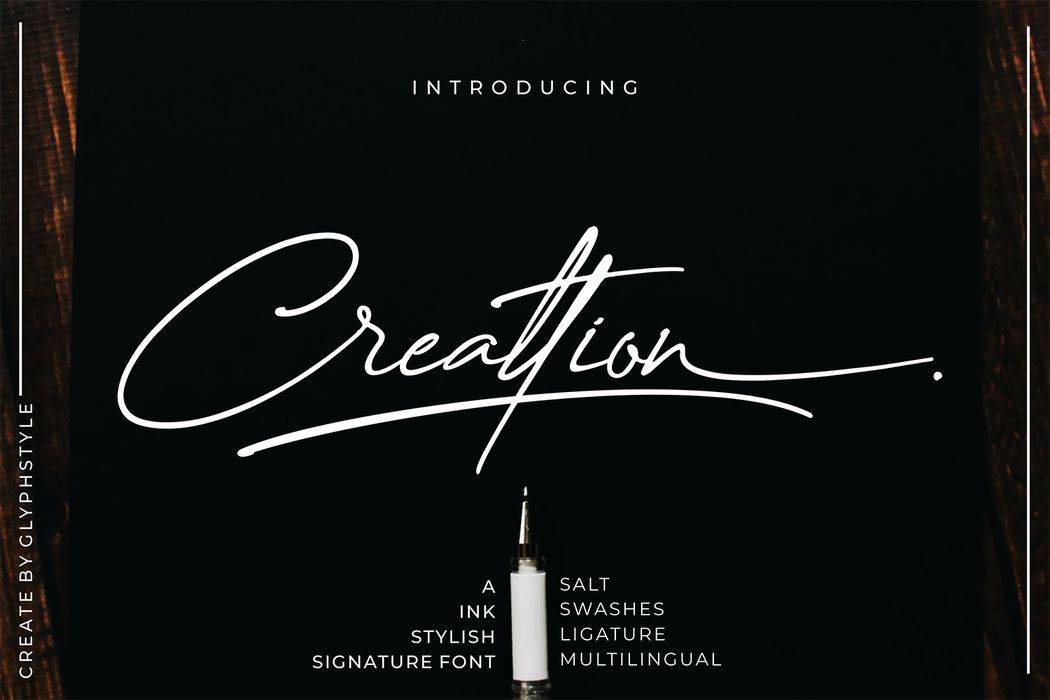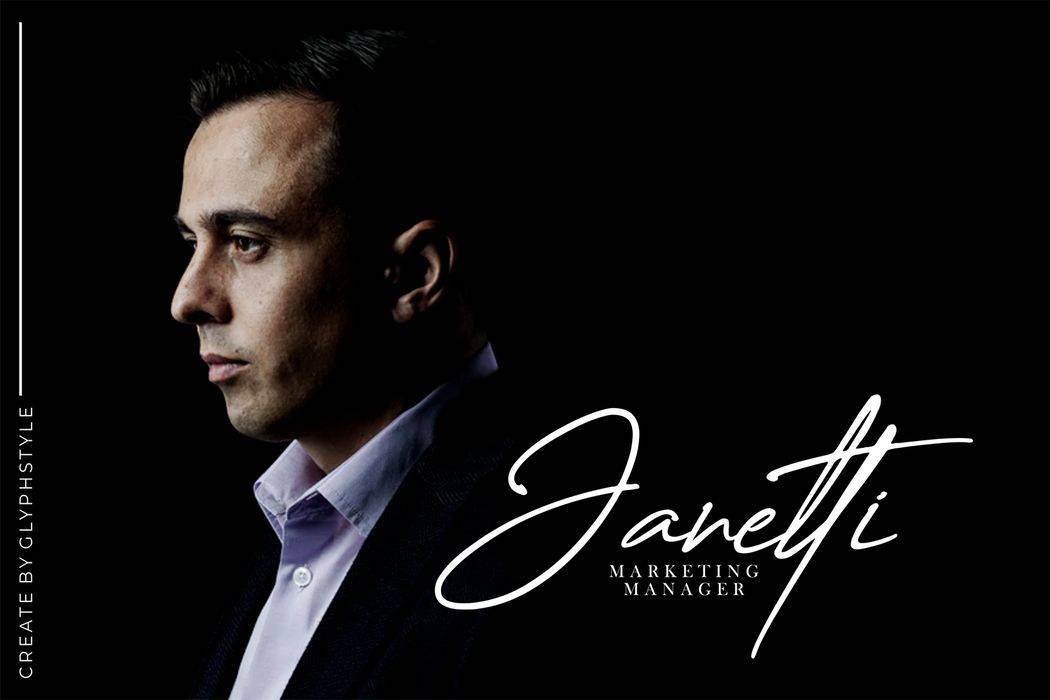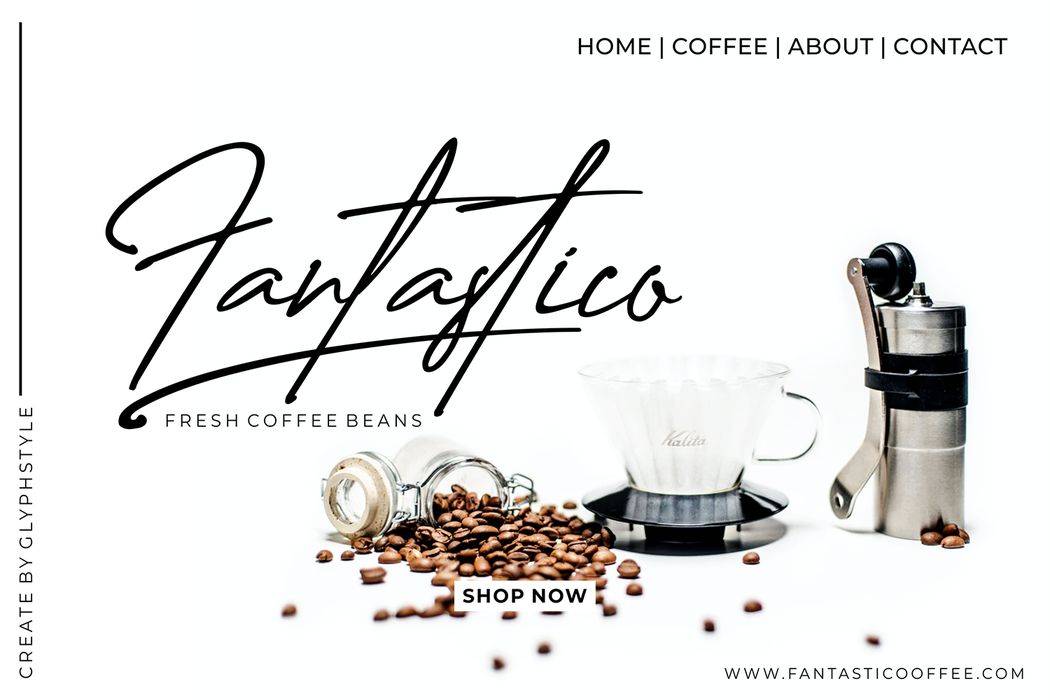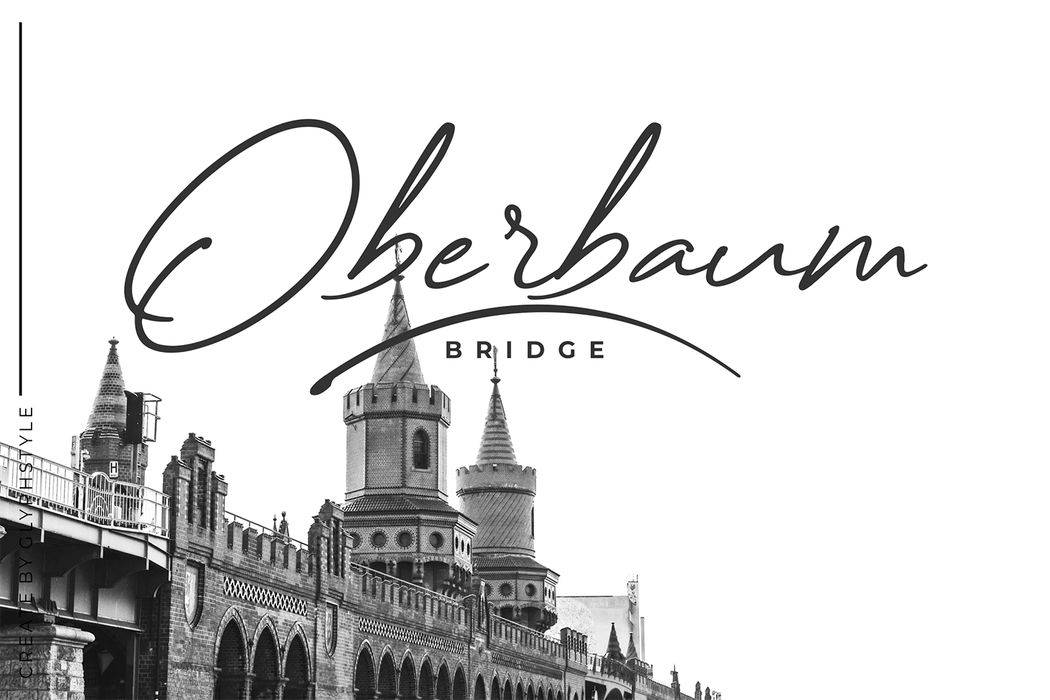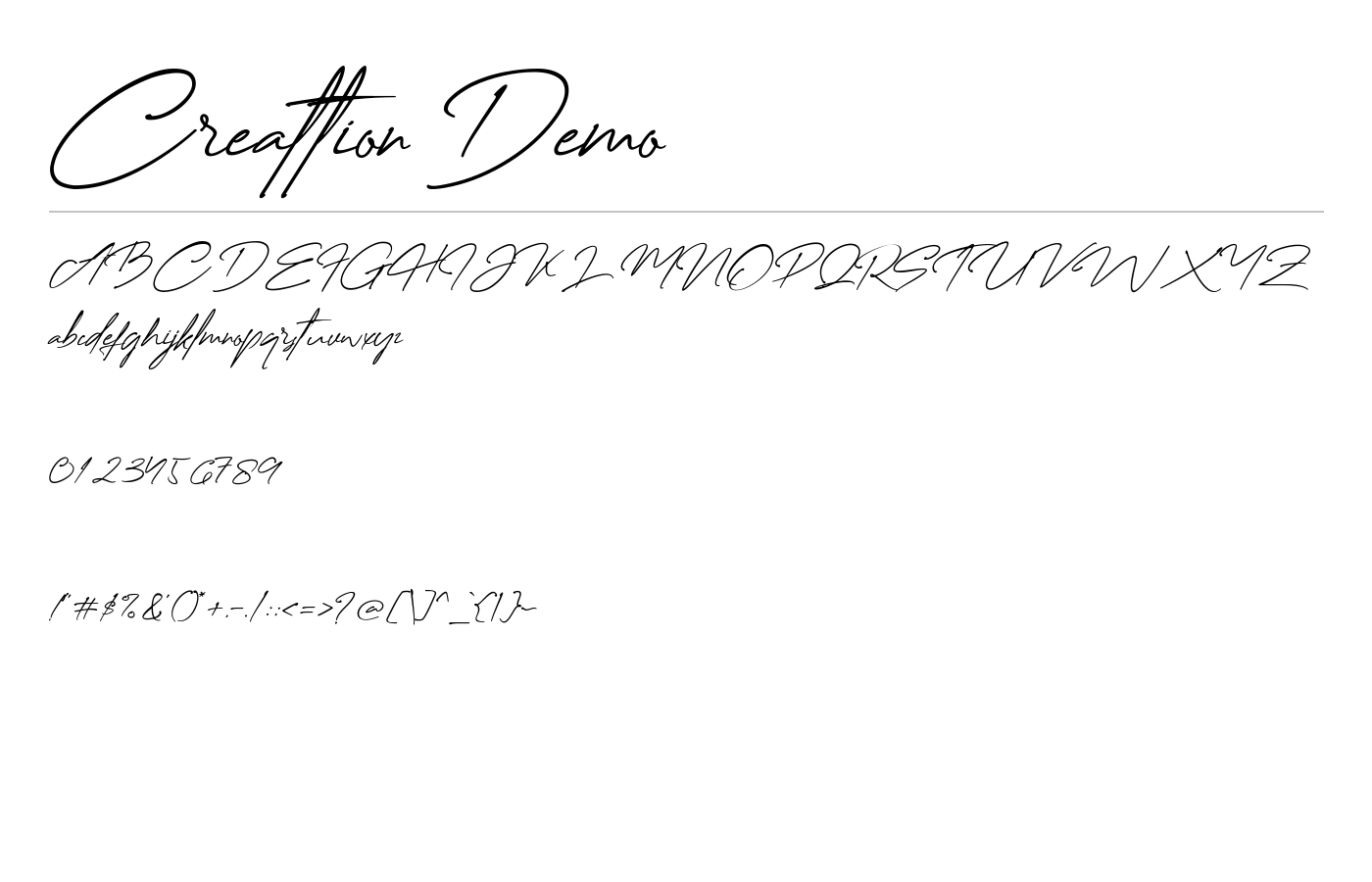
Creattion Font is an elegant, thin script typeface with graceful, flowing strokes that mimic natural handwriting, giving it a sophisticated yet personal feel. Its tall, narrow letterforms and refined lines make it perfect for invitations, branding, and any design needing a stylish, high-end touch. This font works beautifully in contexts where a delicate and artistic impression is desired.
Creattion Font
About Creattion Font
| Font family | Creattion Font |
| Designer | GlyphStyle |